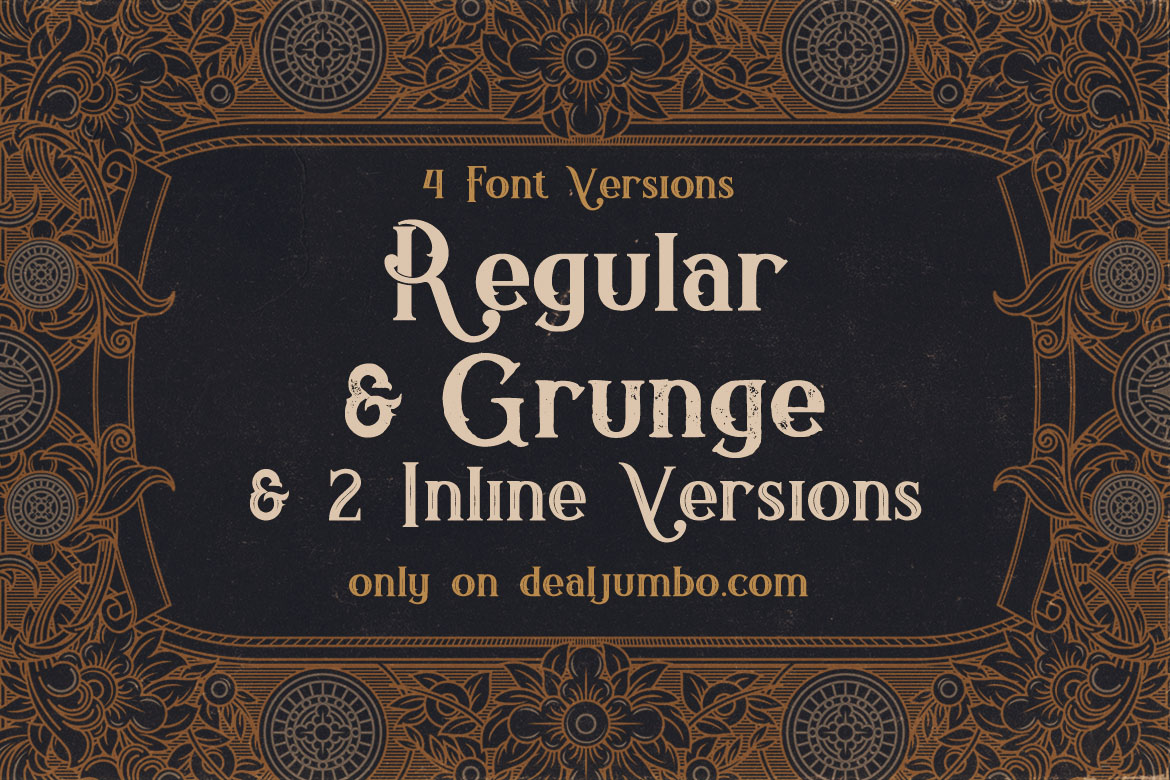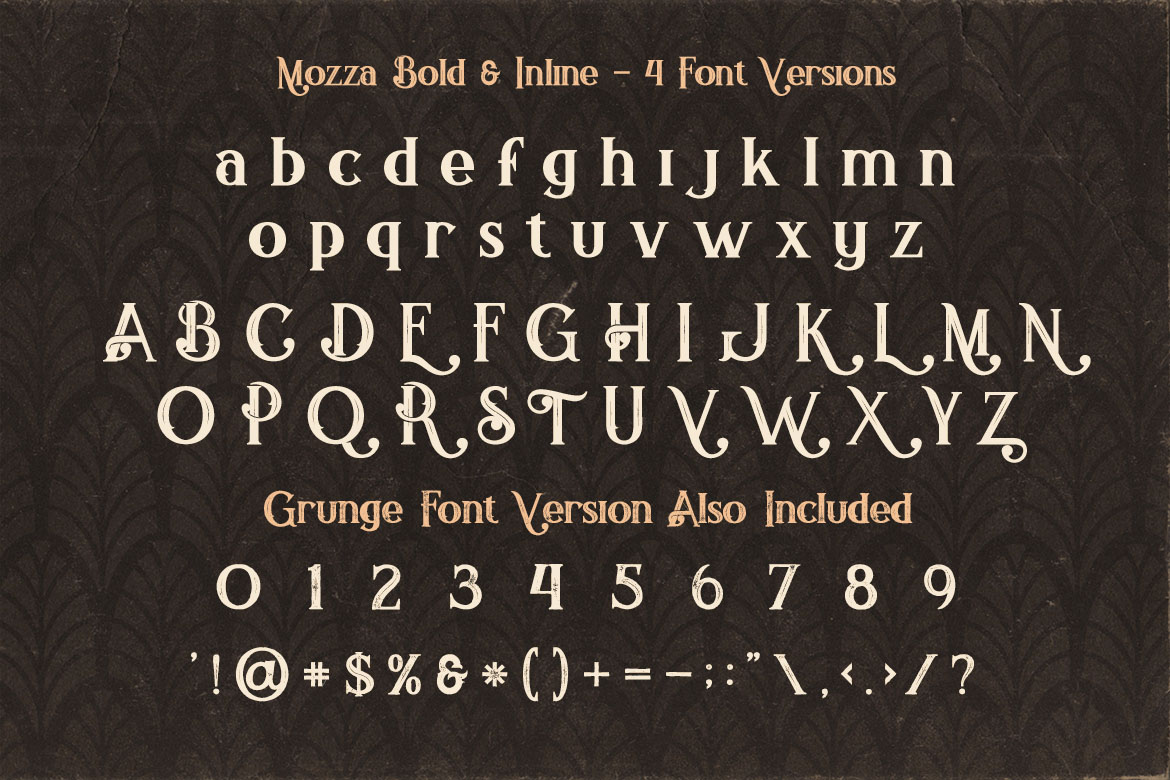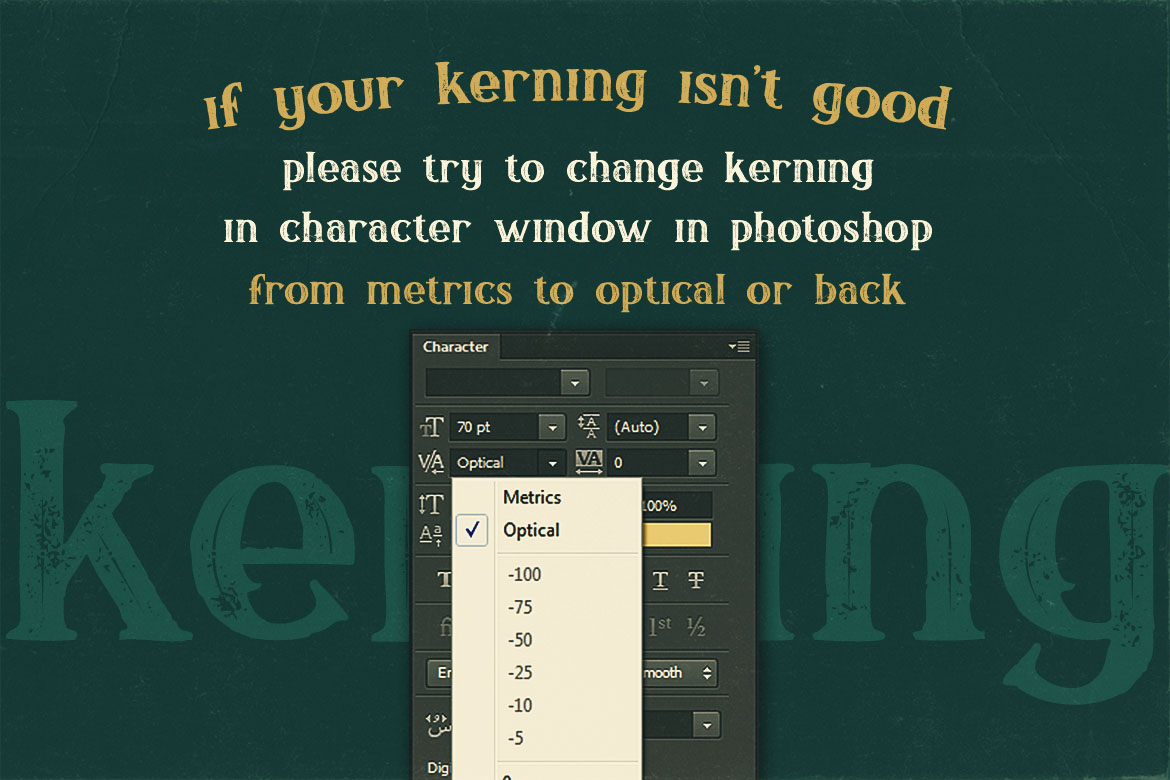
Mozza Bold & Inline – Free Font
Bold & inline retro or vintage display serif – free font from Jumbo Design. Only basic characters in 4 font versions: Regular & Grunge + Inline & Inline Grunge. Download & enjoy 😉 Exclusive only for dealjumbo!